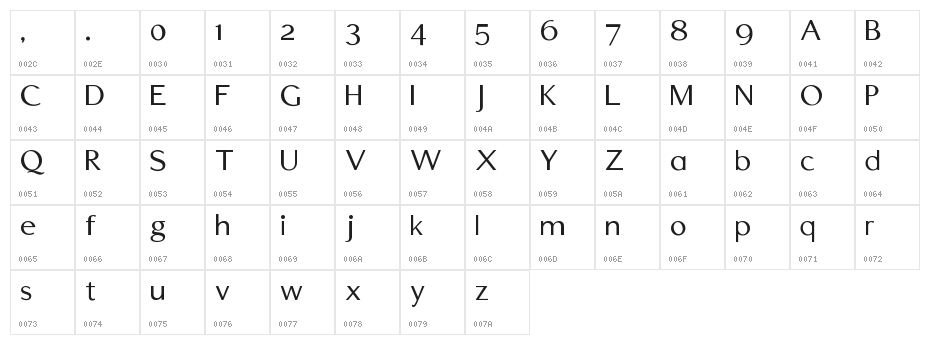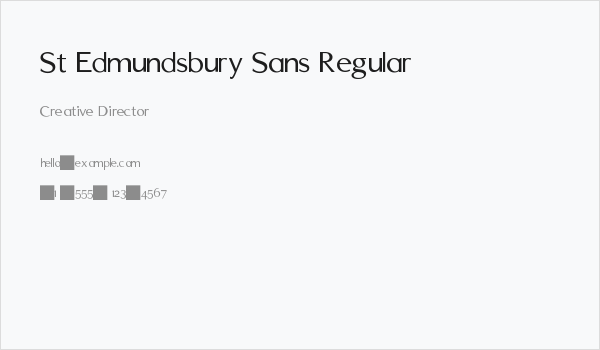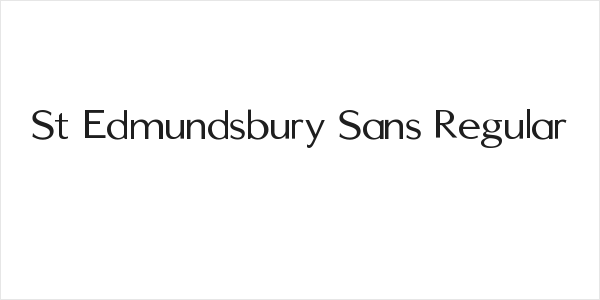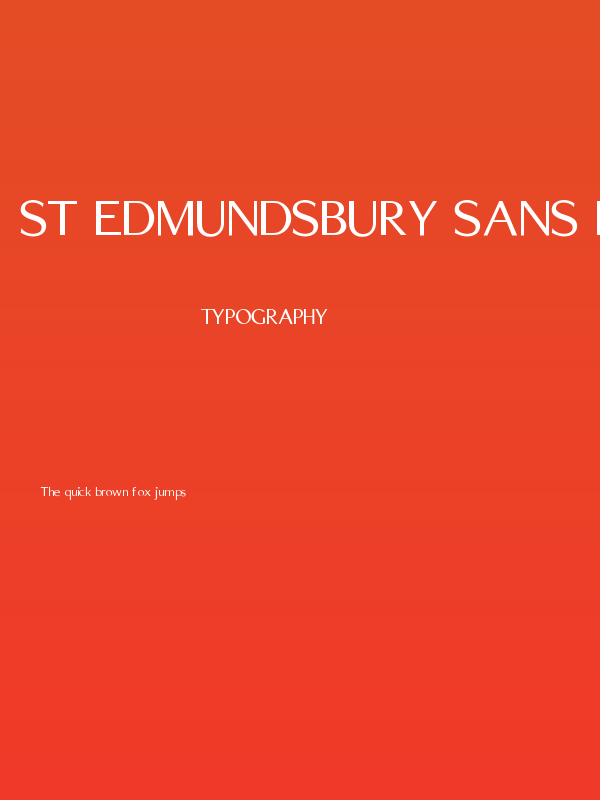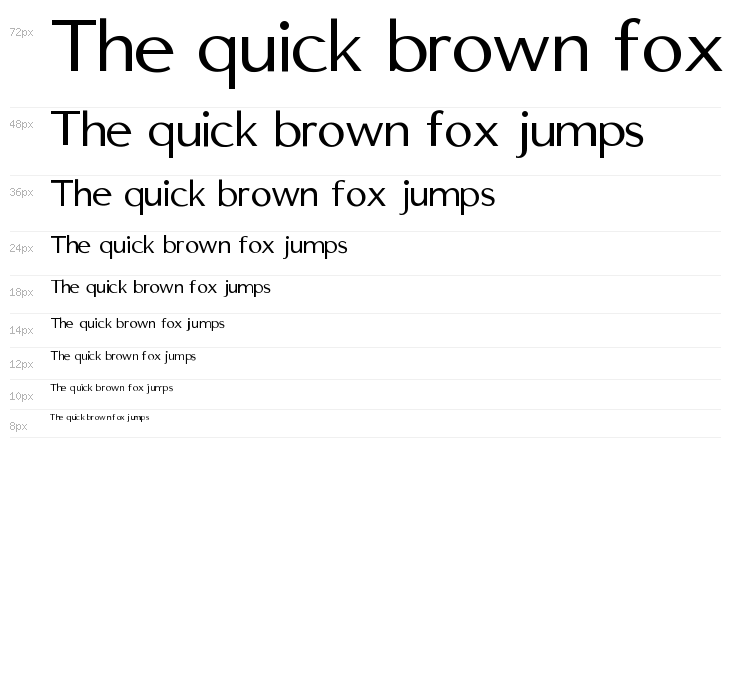
St Edmundsbury Sans Regular Font
St Edmundsbury Sans Regular Description
This typeface presents a clean and modern aesthetic with a sans-serif style. The characters are well-proportioned, featuring smooth curves and a consistent stroke width that conveys a sense of simplicity and elegance. The uppercase letters are bold and assertive, while the lowercase letters maintain a harmonious balance, offering readability and versatility. The numerals are clear and distinct, making them suitable for various applications. The overall design is minimalistic, with a focus on functionality and clarity, making it ideal for contemporary design projects.
Proposed ProjectsIdeal for branding, web design, advertising, and editorial layouts due to its modern and clean appearance.